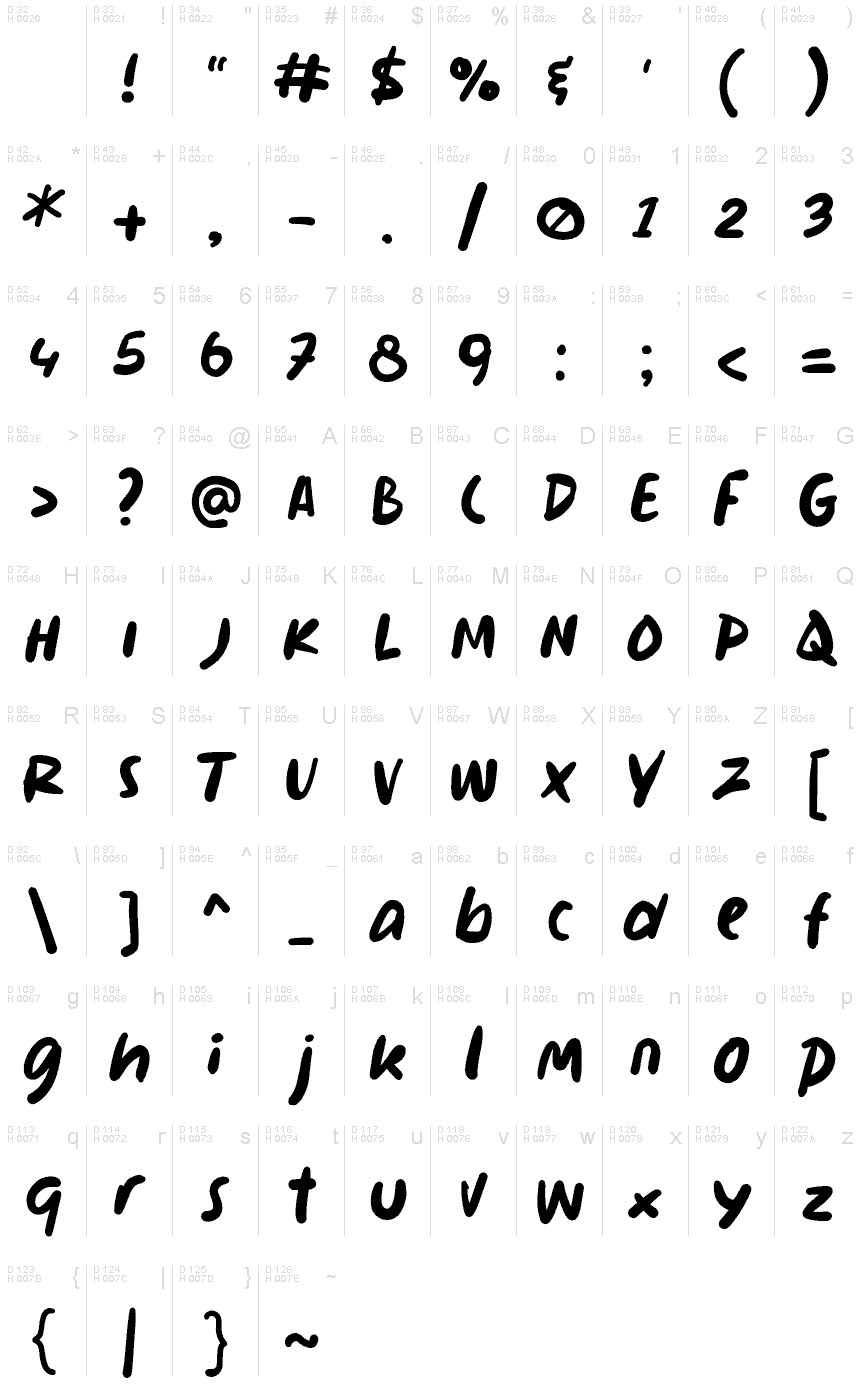
Rough Tagline
Rough Tagline font, designed by Excellent Ritma Florendia, is a playful and bold display brush font. With its energetic and dynamic handwritten style, it showcases ink and marker strokes that add a raw authenticity to any project. The font exudes a modern yet casual aesthetic with its expressive and textured design, perfect for creating eye-catching visual content.
This free brush font can be used in digital posters, social media graphics, slogans, tags, branding projects and more. Its unique artistic flair is well-suited for book covers as well as magazine covers or initial page headings in other publications. Web banners, advertising materials such as flyers & brochures can also surely benefit greatly from this unconventional yet mesmerizing typeface.